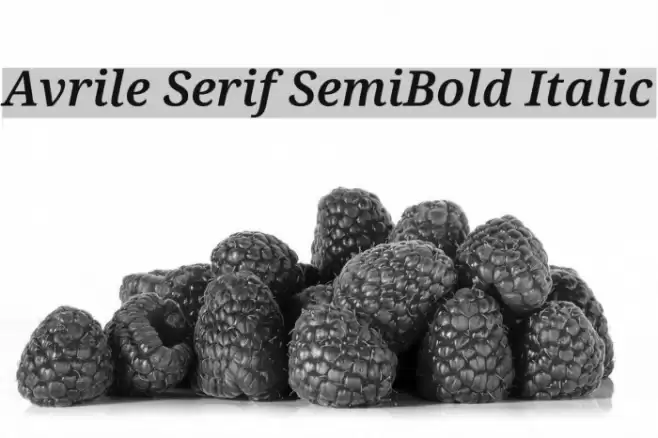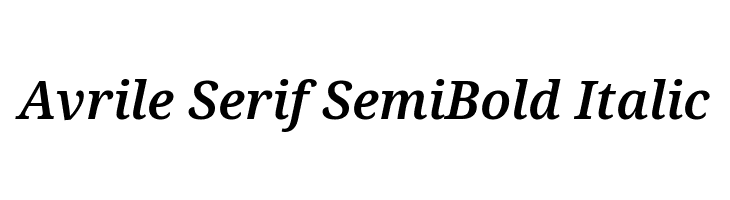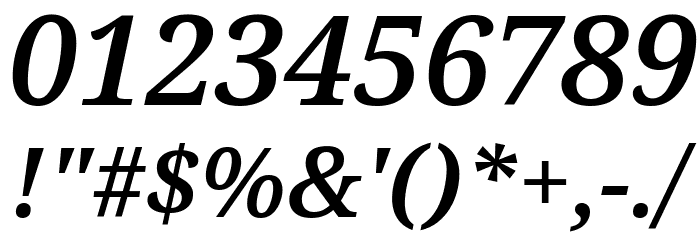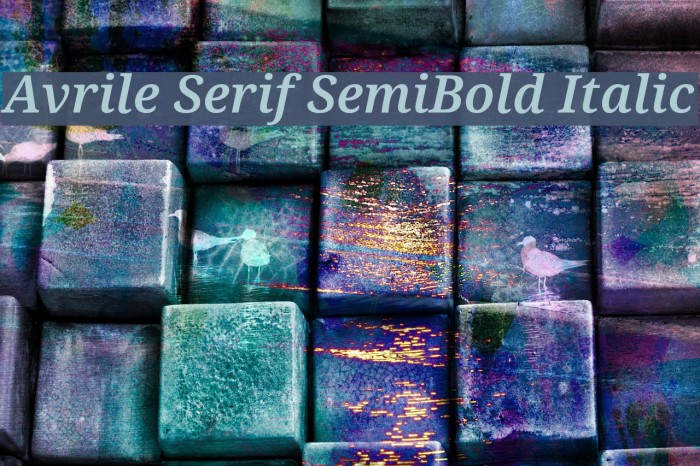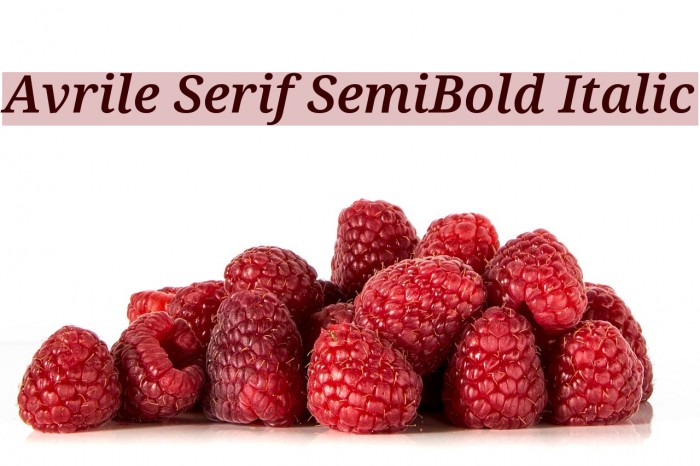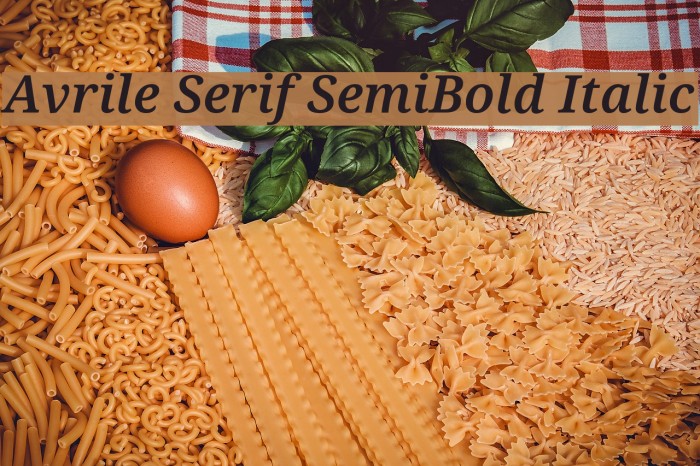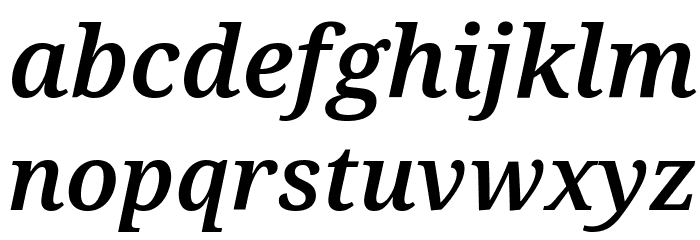
Avrile Serif SemiBold Italic Font
Avrile Serif SemiBold Italic Description
This font exhibits a classic serif style with a semi-bold weight, providing a strong yet elegant appearance. The italic slant adds a dynamic and sophisticated touch, making it suitable for both formal and creative applications. The characters are well-defined with moderate contrast between thick and thin strokes, enhancing readability while maintaining a stylish flair. The overall design is balanced, with slightly condensed letterforms that contribute to a compact and efficient use of space. This font is versatile, capable of conveying professionalism and creativity in equal measure.
A classic serif font with semi-bold weight and italic style, offering elegance and readability from Uncategorized fonts.
- Proposed Projects: Ideal for editorial design, book covers, branding materials, and elegant invitations.
- Overall Style: Classic